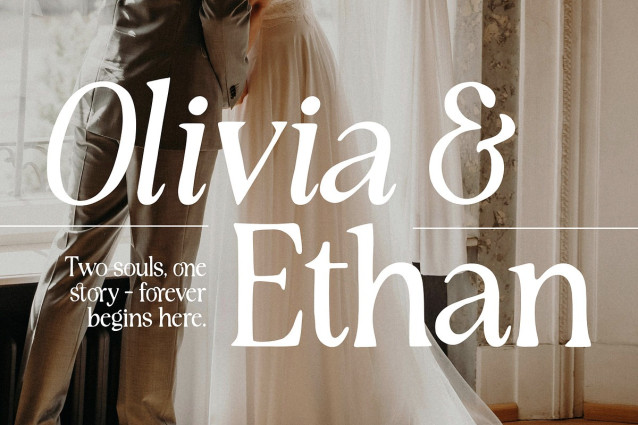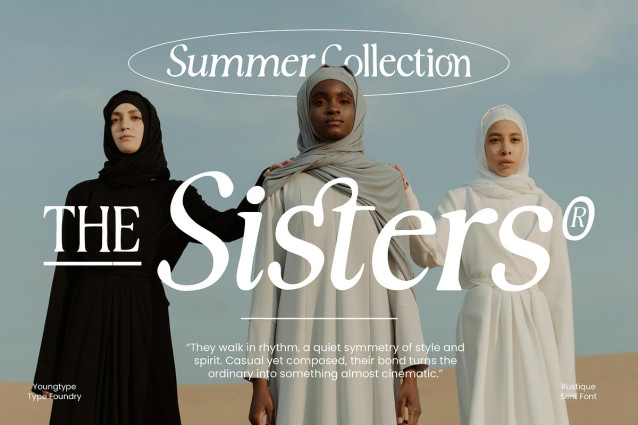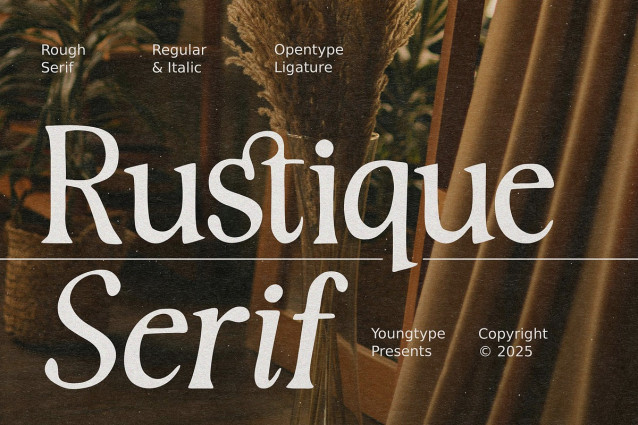
Rustique Serif Font
Rustique Serif Font is a refined and stylish typeface that combines a rough serif texture with elegant letterforms, making it perfect for creating a timeless, rustic aesthetic. Available in both regular and italic styles, this font offers flexibility for various design projects, while its opentype ligatures add a unique and artistic touch to typography compositions. Its handcrafted feel brings warmth and character, ideal for branding, editorial layouts, packaging, or any creative work that seeks a blend of sophistication and vintage charm.